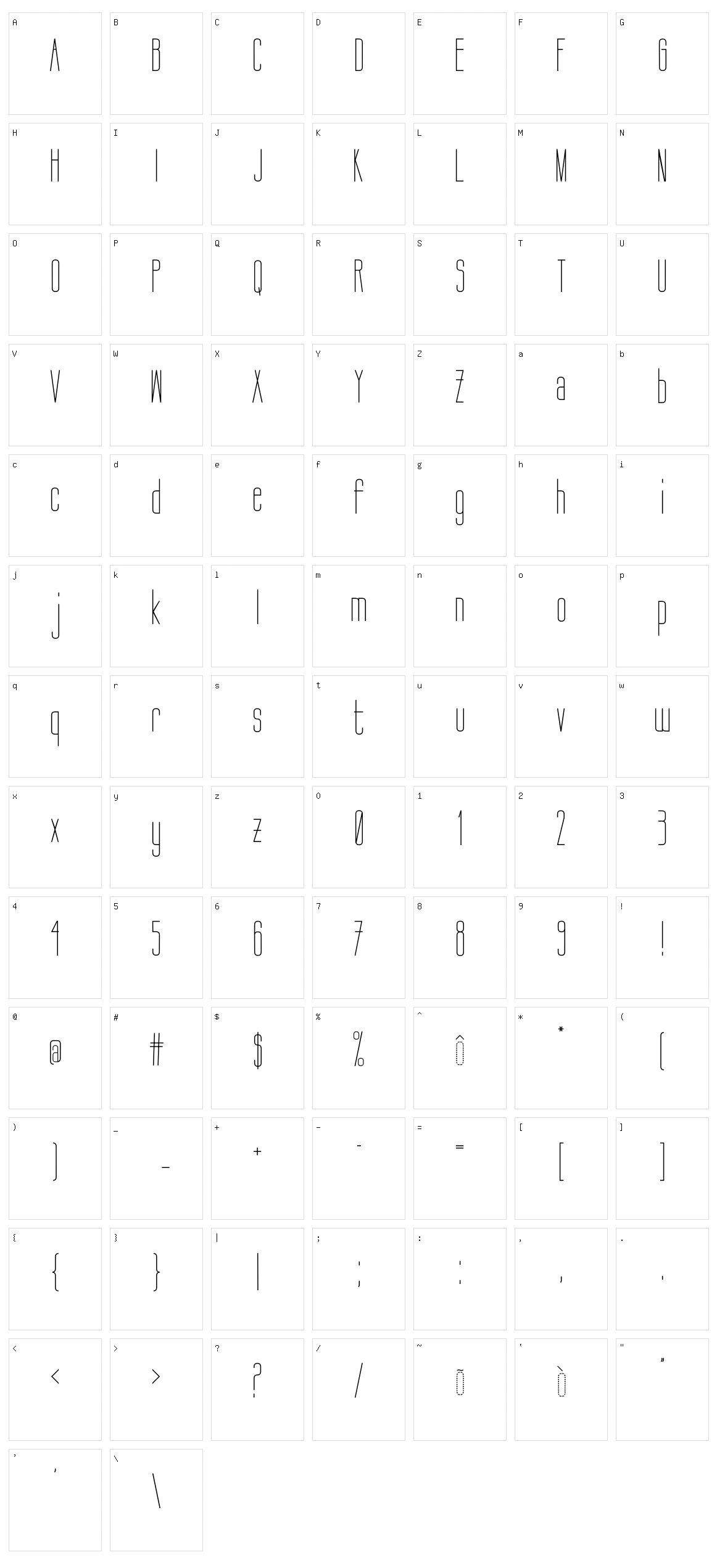
The free font Loremipsum is carefully designed by Matheus Coscia, showcasing a thoughtful balance of creativity and usability and falls under the Sans serif font style. When you download the ZIP file, it contains only 11 KB of font files, making it lightweight and quick to download. Please review the license details below to understand permitted usage and distribution rights. If license information is not available, we recommend using this font for personal projects only or contacting the author directly for commercial usage permissions.